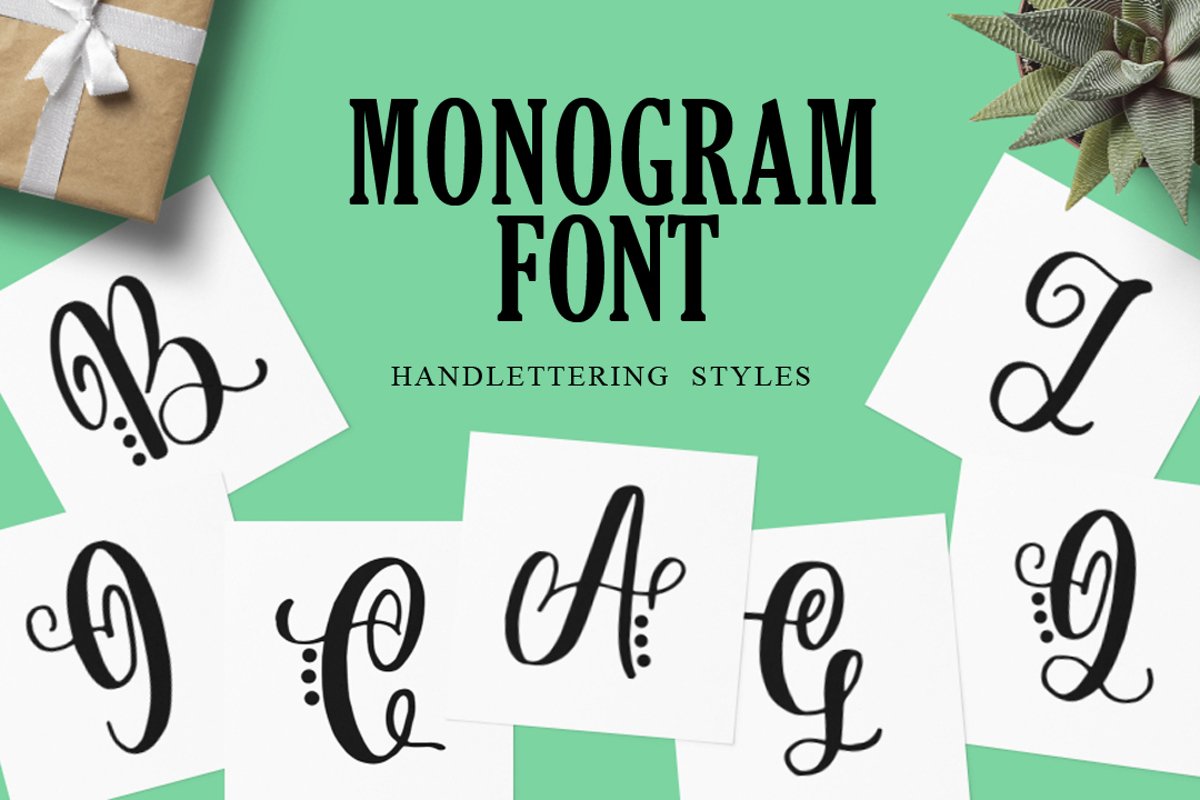
Monogram Handlettered for Crafters
Introduce a new product from us. Monogram Handlettered for Crafters . in this product there are 2 versions with dot and original. including OTF and TTF. This monogram is perfect for printing on mugs, cards, or on your other products. thanks